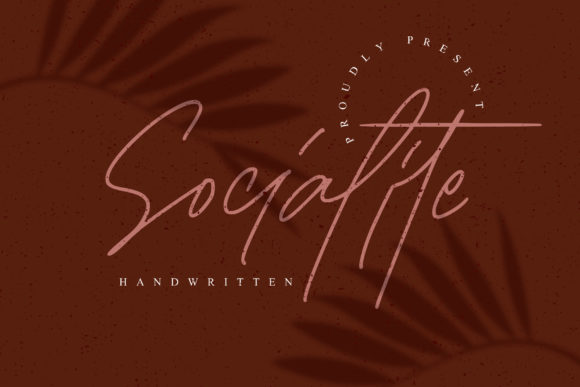
Immerse yourself in the world of elegance and sophistication with Socialite Font, a captivating script font that exudes charm and allure. Its delicate strokes and graceful curves evoke a sense of timeless beauty, making it the perfect choice for creating wedding invitations, love letters, or any project where a touch of romance and refinement is desired.
With Socialite Font, you'll have access to a treasure trove of stunning glyphs and ligatures, allowing you to add an extra layer of creativity and personalization to your designs. Effortlessly create harmonious letter combinations and stylish flourishes that will elevate your projects to new heights of artistry.
Unleash your inner artist and explore the boundless possibilities of Socialite Font. Its versatility knows no bounds, making it suitable for a wide range of projects, from heartfelt wedding invitations to elegant branding materials. Its timeless appeal ensures that your creations will remain captivating and stylish for years to come.
Indulge in the beauty and luxury of Socialite Font and elevate your designs to new heights. With its enchanting charm and endless creative potential, this font is sure to become your go-to choice for any project that demands a touch of sophistication and elegance.